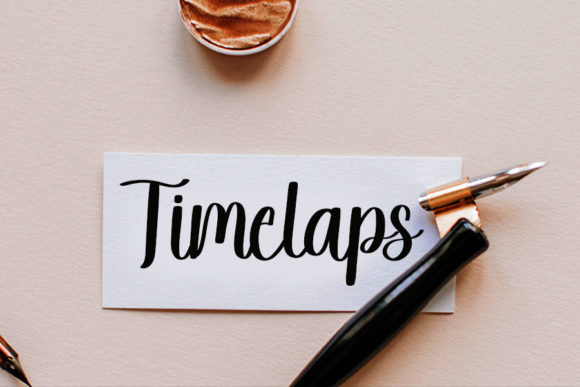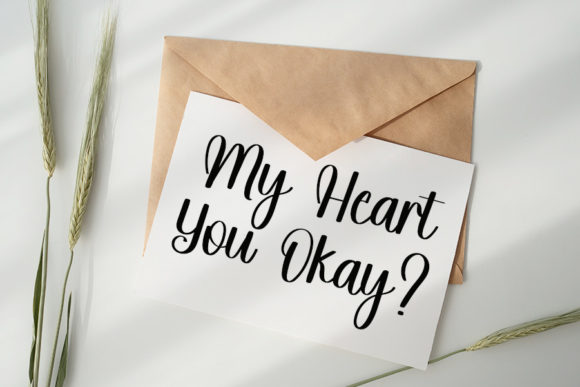
Lettering Font
db-ku.com - Script & Handwritten -- Lettering is a gorgeous and bold handwritten font. It reads as confident and dynamic and can add tons of nostalgic character to your designs.